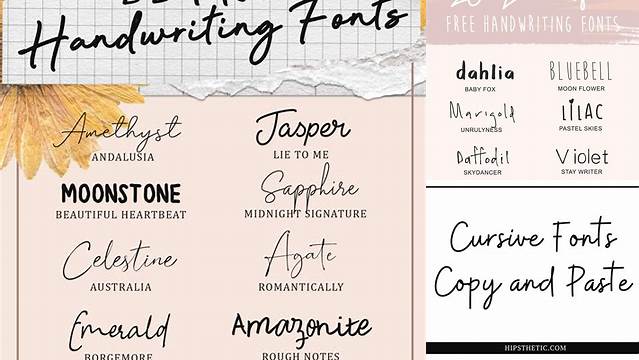
Free Handwriting Fonts: Copy & Paste Now!
Hey guys! Ever wanted to give your projects that personal, handwritten touch without actually, you know, handwriting everything? That's where free handwriting fonts come in! And the best part? You can copy and paste them directly into your work. Let's dive into the world of beautiful, easily accessible handwriting fonts that'll make your creations pop.
1. Best Free Handwriting Fonts for Digital Projects
When it comes to digital projects, the right free handwriting font can make all the difference. Whether you're designing a website, creating social media graphics, or putting together a presentation, a well-chosen font can add a touch of authenticity and personality. The key is to find fonts that are not only visually appealing but also easy to read on screens. Some popular choices include fonts that mimic the look of calligraphy, cursive, or even simple print handwriting. Websites like Google Fonts, Font Squirrel, and DaFont offer a vast selection of free handwriting fonts that you can easily download and use in your projects. Make sure to check the licensing agreements to ensure that the font is free for both personal and commercial use. Using these fonts, you can easily copy and paste text into your designs, saving time and effort while achieving a polished, professional look. Always test the font in various sizes and contexts to ensure readability and visual harmony with your overall design.
5. Using Handwriting Fonts in Microsoft Word
Adding a personal touch to your documents in Microsoft Word is a breeze with free handwriting fonts. Once you've installed the font on your system (following the steps for Windows or macOS), open Word and select the font from the font menu. Type your text, and it will appear in the chosen handwriting style. You can then format the text as needed, adjusting the size, color, and spacing to achieve the desired look. To copy and paste text from other sources into Word using the handwriting font, simply select the text, copy it (Ctrl+C or Command+C), and paste it into your Word document (Ctrl+V or Command+V). Then, select the pasted text and apply the handwriting font. One thing to keep in mind is that some handwriting fonts may not be as legible as standard fonts, so it's essential to choose a font that's easy to read, especially for longer documents. Experiment with different fonts to find the perfect balance between style and readability. Utilizing free handwriting fonts in Microsoft Word can transform ordinary documents into visually appealing and engaging pieces of work.
6. Incorporating Handwriting Fonts in Adobe Photoshop
Adobe Photoshop offers endless possibilities for creative design, and incorporating free handwriting fonts can add a unique, personal touch to your projects. After installing the font on your system, open Photoshop and create a new text layer. Select the text tool, click on your canvas, and choose the handwriting font from the font menu. Type your text, and it will appear in the chosen style. You can then use Photoshop's various tools to further customize the text, adding effects like drop shadows, gradients, or outlines. To copy and paste text into Photoshop using the handwriting font, copy the text from another source (Ctrl+C or Command+C) and paste it into your text layer in Photoshop (Ctrl+V or Command+V). Then, select the pasted text and apply the handwriting font. Photoshop also allows you to warp and distort text, giving you even more creative control over the appearance of your handwriting font. Experiment with different blending modes and layer styles to create stunning visual effects. With free handwriting fonts and Photoshop's powerful tools, you can create captivating designs that stand out from the crowd.
7. Free Handwriting Fonts for Cricut Projects
If you're a Cricut enthusiast, free handwriting fonts can be a game-changer for your crafting projects. Cricut Design Space allows you to upload and use custom fonts, enabling you to create personalized designs with a handwritten feel. To use a handwriting font in Cricut Design Space, first ensure that the font is installed on your computer. Then, open Cricut Design Space and create a new project. Add a text box and select the handwriting font from the font menu. Type your text, and it will appear in the chosen style. You can then resize and position the text as needed. To copy and paste text into Cricut Design Space using the handwriting font, copy the text from another source (Ctrl+C or Command+C) and paste it into your text box (Ctrl+V or Command+V). Then, select the pasted text and apply the handwriting font. Keep in mind that some intricate handwriting fonts may be difficult for the Cricut to cut, so it's essential to choose a font that's relatively simple and clean. Experiment with different fonts and materials to achieve the best results. With free handwriting fonts and your Cricut machine, you can create beautiful, personalized crafts that are sure to impress.
8. Handwriting Fonts That Look Like Real Handwriting
The beauty of free handwriting fonts lies in their ability to mimic the look of real handwriting. Some fonts are designed to be almost indistinguishable from actual penmanship, capturing the nuances and imperfections that make handwriting unique. These fonts often feature varying stroke widths, irregular spacing, and subtle textures that give them an authentic feel. When choosing a handwriting font that looks like real handwriting, pay attention to these details. Look for fonts that have a natural flow and avoid fonts that appear too perfect or uniform. Fonts that incorporate ligatures (connecting strokes between letters) can also enhance the realism. Websites that showcase font previews often provide examples of how the font looks in different contexts, allowing you to assess its authenticity. By carefully selecting a handwriting font that closely resembles real handwriting, you can add a personal and intimate touch to your designs. To copy and paste using these fonts is the same as mentioned above, once installed on your system you can copy and paste anywhere. The free handwriting fonts can be a great way to enhance your content.
9. Cursive Handwriting Fonts for Elegant Designs
For projects that require a touch of elegance and sophistication, free cursive handwriting fonts are an excellent choice. Cursive fonts evoke a sense of tradition and refinement, making them ideal for invitations, wedding stationery, and branding materials. When selecting a cursive font, consider the overall tone and style of your project. Some cursive fonts are delicate and ornate, while others are more modern and streamlined. Look for fonts that are easy to read and have a consistent flow. Fonts that include decorative flourishes and swashes can add extra flair, but be careful not to overdo it. To copy and paste text using a cursive font, simply select the font in your chosen application and type or paste your text. The cursive font will transform your words into flowing, elegant script. Pay attention to the spacing between letters and words to ensure readability. With the right free handwriting fonts, you can create designs that exude sophistication and charm.
30. Creating Scrapbook Pages with Free Handwriting Fonts
Scrapbooking is a wonderful way to preserve memories, celebrate special moments, and tell stories through visual art. Free handwriting fonts can be a valuable addition to your scrapbooking toolkit, allowing you to add personal captions, heartfelt journaling, and creative titles to your scrapbook pages. Picture a vacation scrapbook with place names and dates displayed in a casual, handwritten style, or a family history scrapbook with ancestor's names written in an elegant script. These details can add character, authenticity, and emotional depth to your scrapbook layouts. When selecting fonts for your scrapbook pages, consider the theme, style, and overall aesthetic of your project. Opt for fonts that are legible and that complement your photos, embellishments, and paper choices. To copy and paste text using the handwriting font, simply select it in your design software or word processor and type your captions, stories, or titles. The creative integration of free handwriting fonts can help you create scrapbook pages that are both visually stunning and deeply personal.